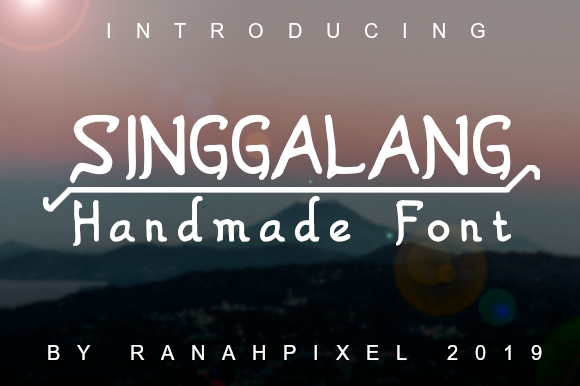
Immerse yourself in the world of culinary delights with Singgalang Font, the ultimate font for your food logo creations. This decorative font, meticulously crafted by Ranahpixel, exudes charm and authenticity, promising to add a unique and delectable touch to your designs.
Singgalang Font is not just a collection of letters; it's an embodiment of culinary artistry. Its curves mimic the swirls of creamy sauces, its edges sharp as a chef's knife, and its overall aesthetic as inviting as a freshly baked loaf of bread. This font will transform your food logo into a mouthwatering masterpiece, alluring customers with its captivating presence.
With Singgalang Font, you'll have the power to:
- Craft logos that evoke the warmth of a cozy kitchen, the vibrancy of a bustling market, or the elegance of a Michelin-starred restaurant.
- Create designs that capture the essence of your culinary brand, whether it's playful and casual or sophisticated and refined.
- Attract customers with a logo that speaks to their senses, making them crave the delectable dishes you offer.
Singgalang Font is more than just a font; it's an invitation to embark on a culinary adventure. It's the perfect choice for restaurants, cafes, bakeries, food trucks, and any other food-related business looking to create a logo that truly tantalizes the taste buds.
Don't settle for ordinary fonts that blend into the background. Choose Singgalang Font and let your food logo take center stage, beckoning customers with its irresistible charm.